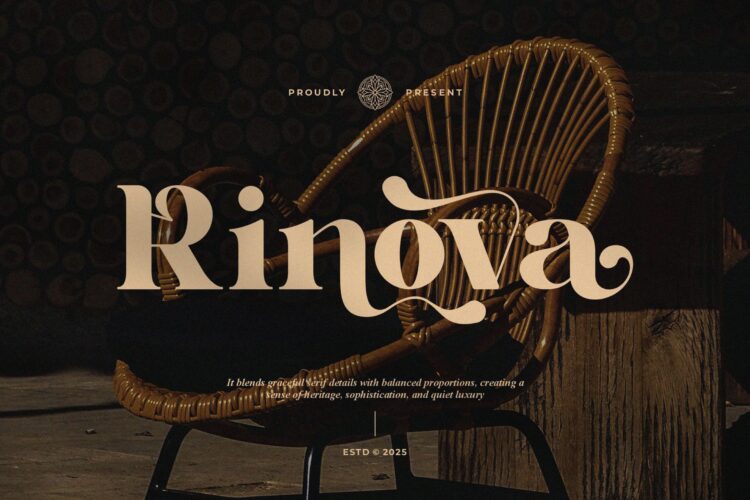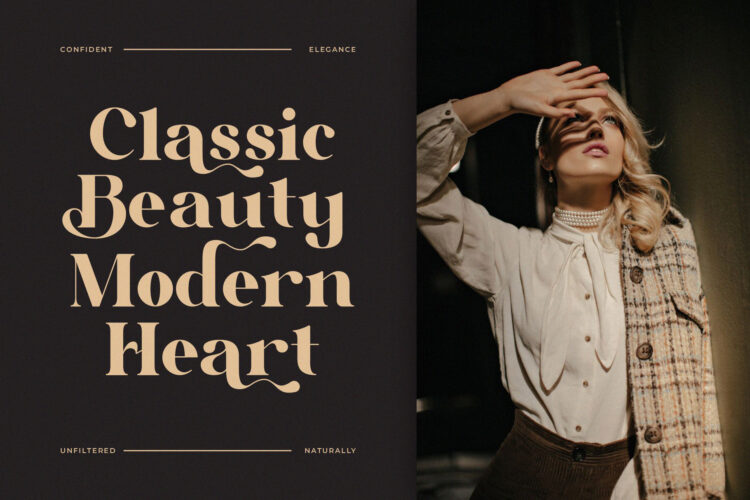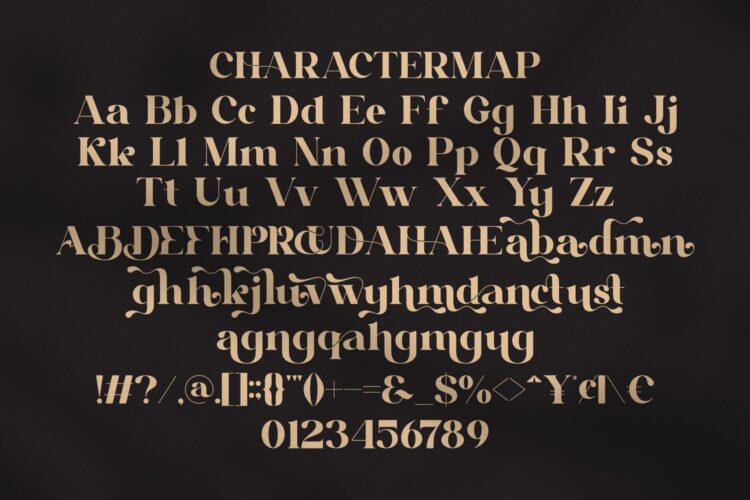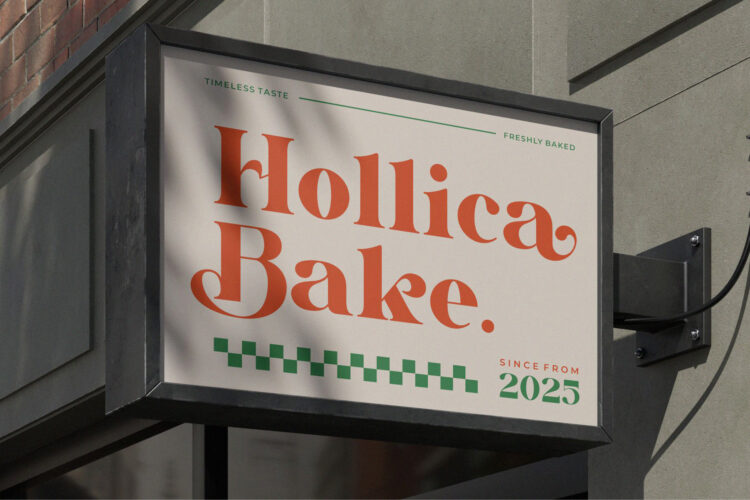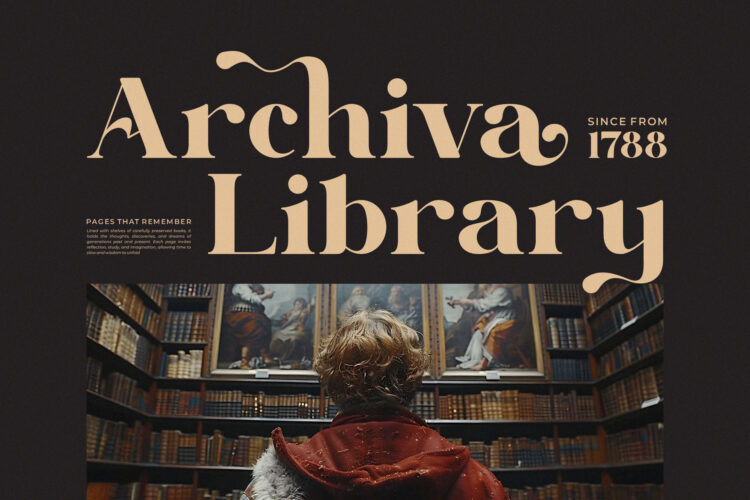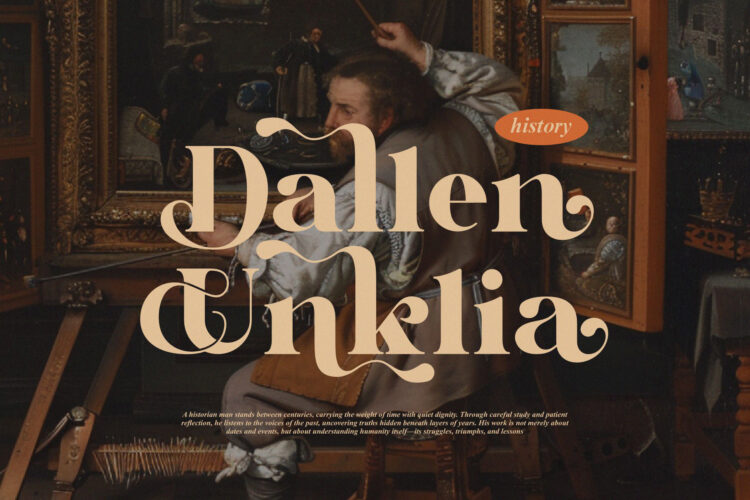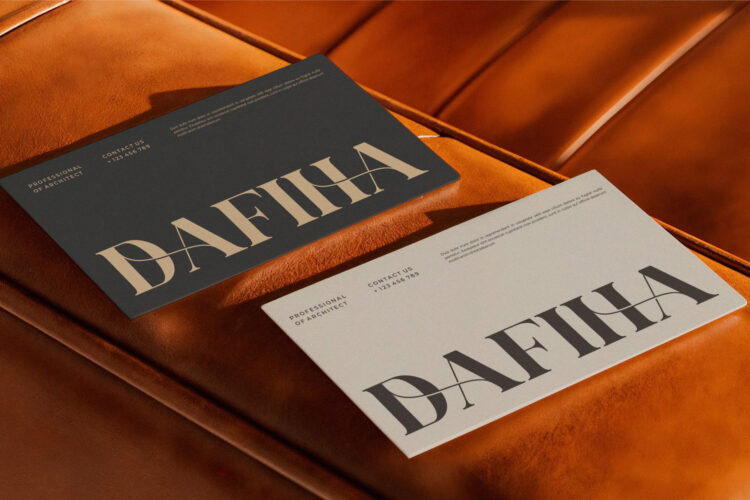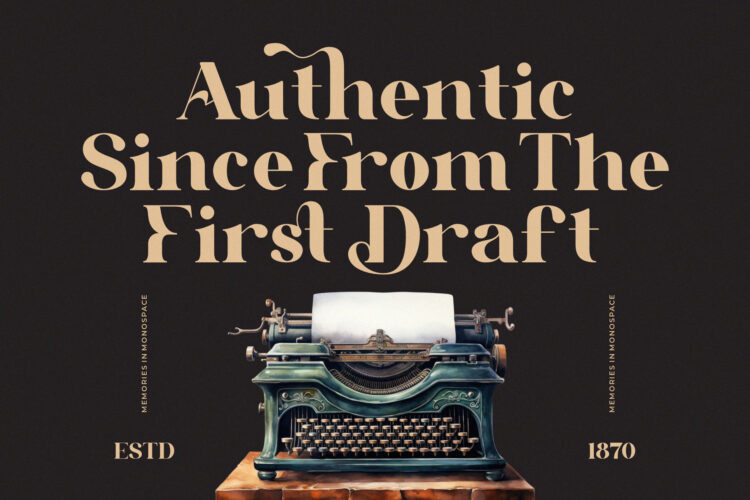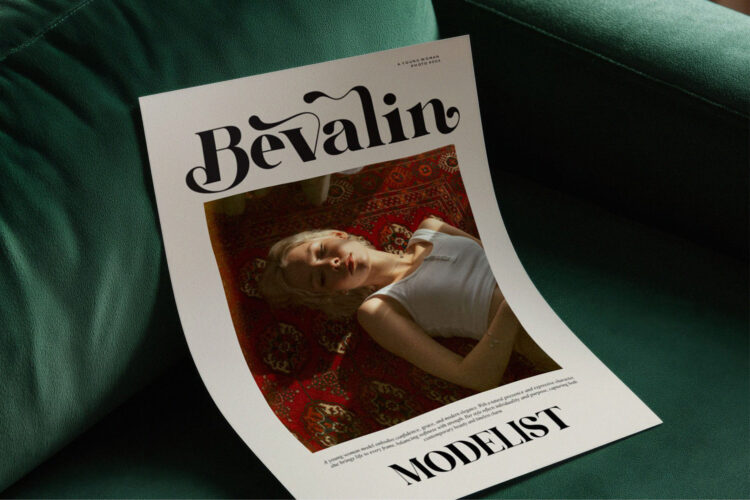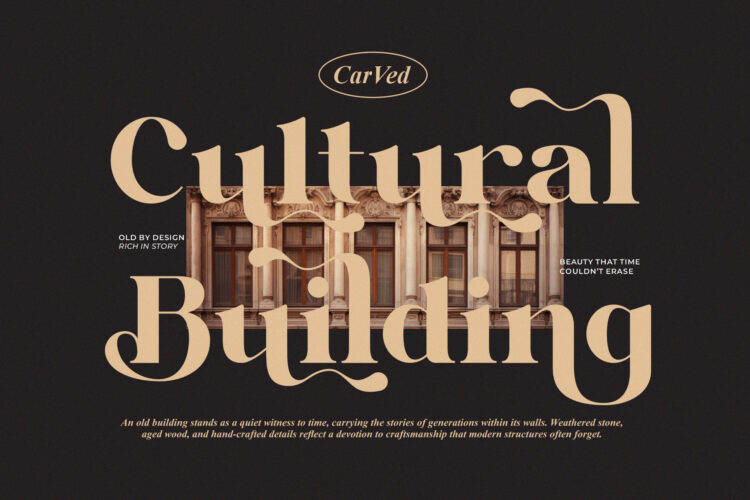
Rinova Serif is a modern and vintage font type for all branding and logo designs. This modern and vintage Serif font has a beautiful character. This font is suitable for invitation card designs, cool logos, movie titles, movie names, business cards, book titles, brand names, and various other designs. Rinova Serif is a smooth serif font that exudes sophistication and the moment. Its stylish ligatures make this font a perfect partner for any project.